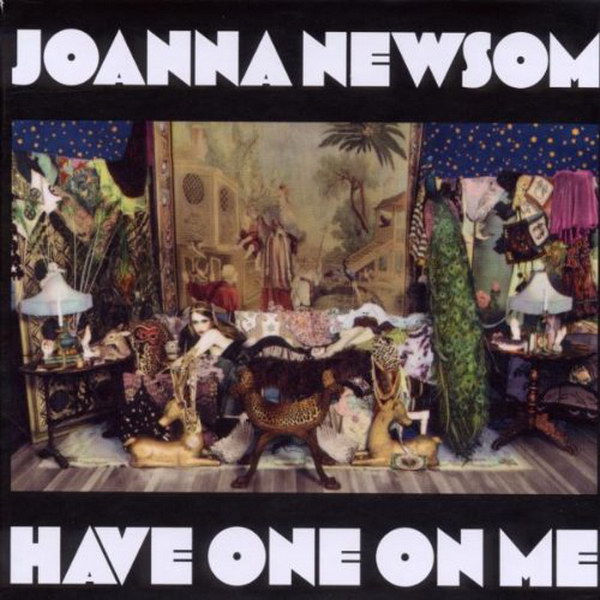
Have One On Me Font
FolkHave One On Me is a triple album by singer-songwriter Joanna Newsom, released in 2010 through Drag City Records.
Mostra Nuova Black is the most likely font used on the cover art of the album "Have One On Me". Created by Mark Simonson, this typeface draws inspiration from the lettering found on Italian Art Deco posters and advertisements from the 1930s.